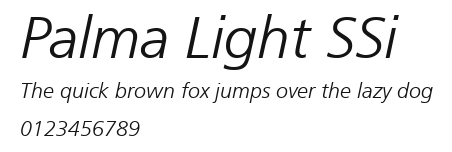
• Font Name: Palma Light SSi
• Font Style: Light Italic
About Palma Light SSi.ttf
Palma Light SSi.ttf is a modern, elegant sans-serif font designed for ultimate readability and visual harmony. Perfect for branding, headlines, web design, and print materials.